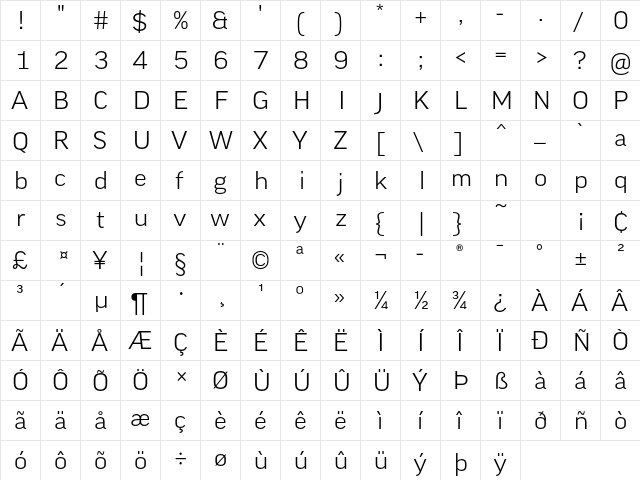
GoodPro WideLight
| Foundry | FSI Fonts und Software GmbH |
| Designer | Lukasz Dziedzic |
Design Context for GoodPro Typeface
GoodPro is a composed and adaptable typeface that performs quietly and consistently across a wide range of design contexts. The delicate stroke weight brings airiness and refinement to layouts.